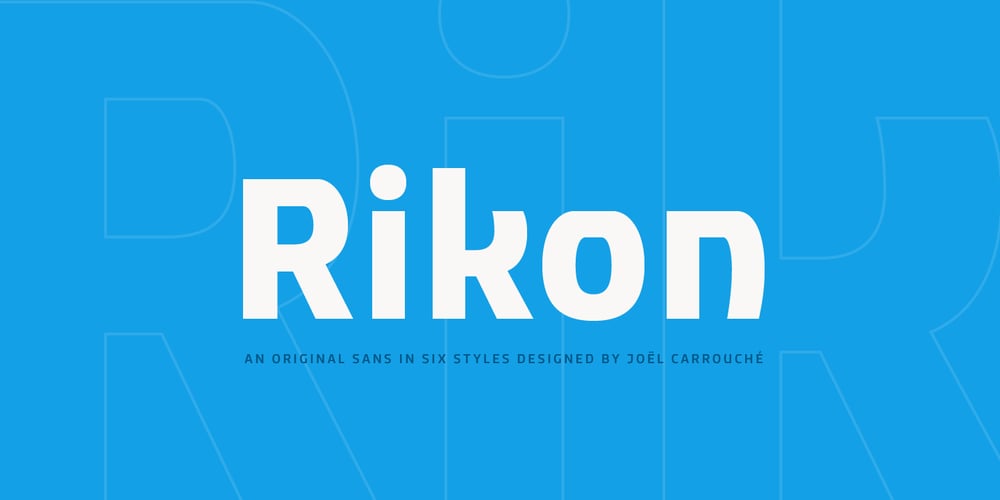
Rikon
Rikon font
Rikon Font Family was designed by Joël Carrouché and published by JCFonts. Rikon contains 6 styles and family package options. Rikon is a modern Sans Serif Family designed by Joël Carrouché and available in six weights, from Thin to Black. With its simple yet original letter shapes, this family displays a strong personality and will really shine in branding or titling applications, while being legible enough to endure longer texts and smaller sizes. The fonts are available in OpenType format, and include diacritics for most European languages and a selection of OpenType features (two stylistic sets, case sensitive forms, tabular figures…).